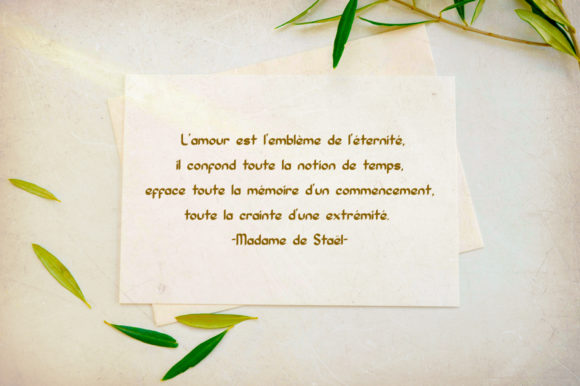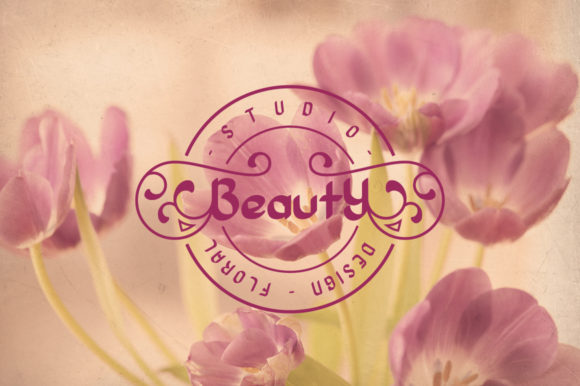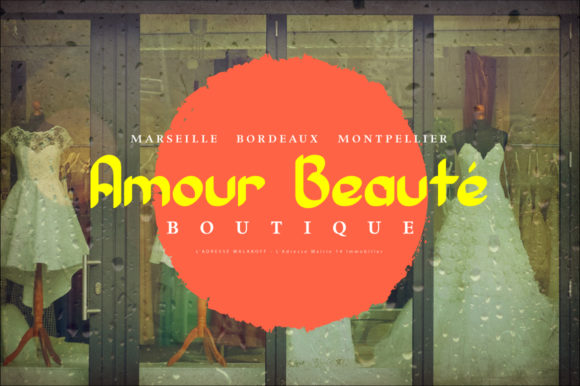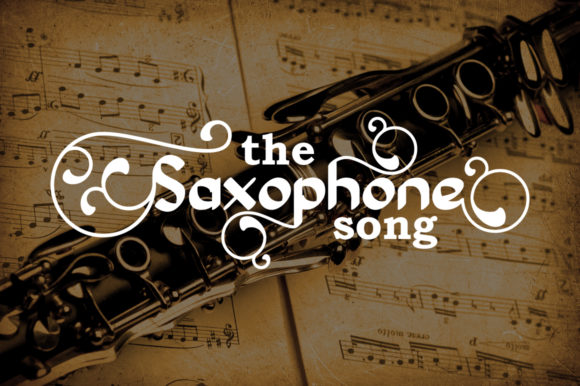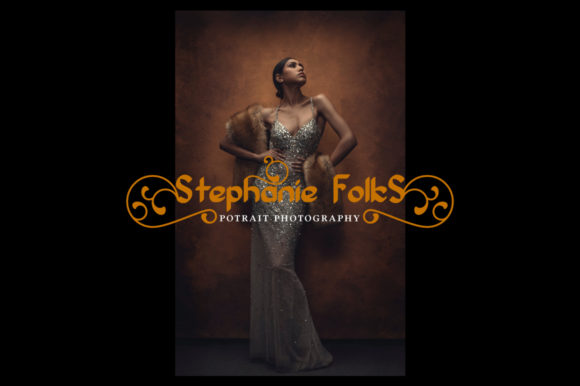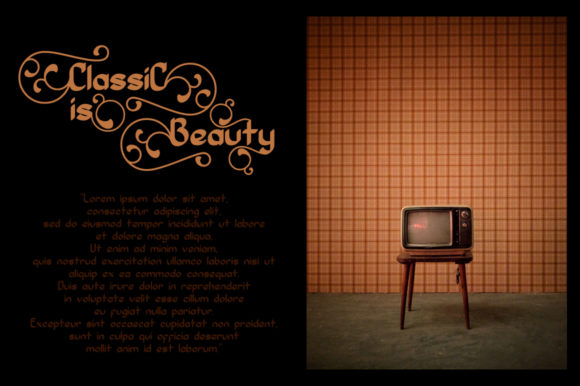
Introduction to Mahardhika Font
Have you ever been working on a creative project, pouring your heart and soul into every detail, only to realize that the font you’ve chosen just doesn’t cut it? The words feel bland, the lines feel dull, and the overall vibe feels, well, meh. That’s when you stumble upon the perfect font – one that elevates your design, makes your words sing, and leaves a lasting impression. For many designers, that perfect font is the Mahardhika Font.
With its polished touch and lovely swashes, the Mahardhika Font is a true gem in the world of design resources. Its classy calligraphic influences are expertly blended with a fresh, contemporary feel that’s sure to make your projects stand out. Whether you’re working on a branding project, a wedding invitation, or a social media campaign, the Mahardhika Font is the perfect addition to your design arsenal.
Key Features of Mahardhika Font
- High-quality design resource ideal for creative projects, offering a unique and elegant style.
- Comes with a transparent background, providing flexibility for designers to customize and combine with other elements.
- Features a large character set, including a wide range of languages, making it suitable for international creative projects.
- Designed with a high resolution (300 DPI), ensuring that the font remains crisp and clear even at large sizes.
- Perfect for use in graphic design, digital art, and other creative pursuits where a sophisticated and elegant font is desired.
Honest Review: Mahardhika Font
I recently had the opportunity to work with the Mahardhika Font, and I must say, it was a delight to use. This free download has quickly become a staple in my design resource library.
- What works well: ✨ High-quality typography that’s perfect for creative projects, especially those that require a modern and sleek aesthetic. The Mahardhika Font is incredibly versatile and can be used for a variety of purposes.
- What works well: ✨ The font is available in several weights and styles, making it easy to find the perfect fit for your design needs. Plus, the transparent background feature allows for seamless integration with any background image or color.
While the Mahardhika Font is an excellent addition to any designer’s toolkit, there are a few limitations to be aware of:
- ⚠️ Limited language support: Unfortunately, the Mahardhika Font only supports a limited number of languages, which may be a concern for designers working on projects that require a broader linguistic scope.
- ⚠️ Not suitable for small text: Due to its modern and sleek design, the Mahardhika Font may not be the best choice for small text or body copy, as it can become difficult to read.
Overall, I’m thoroughly impressed with the Mahardhika Font. Its high quality and versatility make it a valuable asset for any designer working on creative projects. If you’re looking for a reliable and stylish font, the Mahardhika Font is definitely worth checking out.
Tips for Getting the Most Out of Mahardhika Font
For optimal results, use the Mahardhika Font on a transparent background to create a clean and professional design. You can also experiment with different font sizes and colors to add visual interest to your project.
The Mahardhika Font is a versatile design resource that can be used for various creative projects, such as logos, business cards, and social media graphics. It’s also a great choice for designing presentations, documents, and websites.